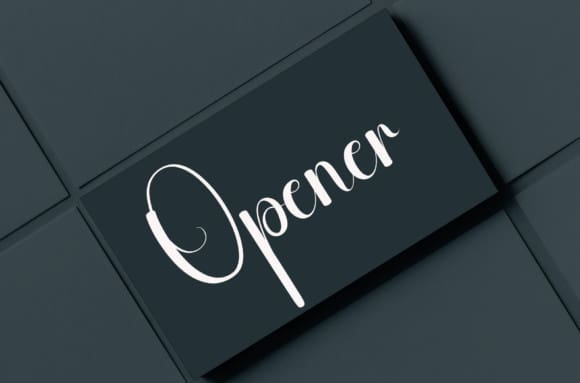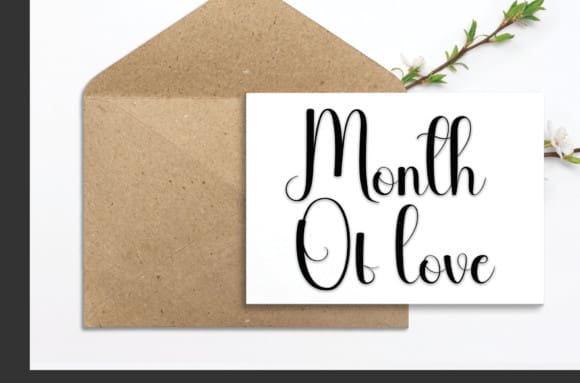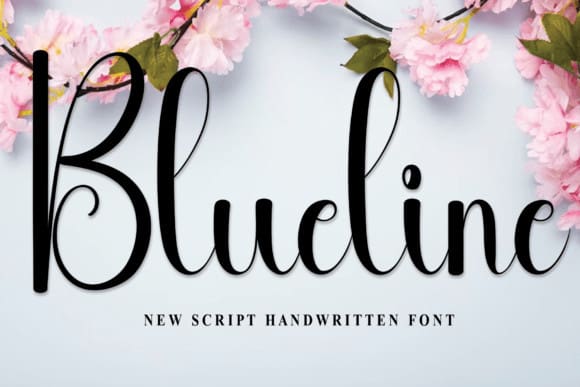
Blueline Script Font
Blueline Script Font, is a sweet and friendly handwritten font. Fresh and neat, this font is ideal for writing wedding invitations, cards, or any other design that might need a fun touch!